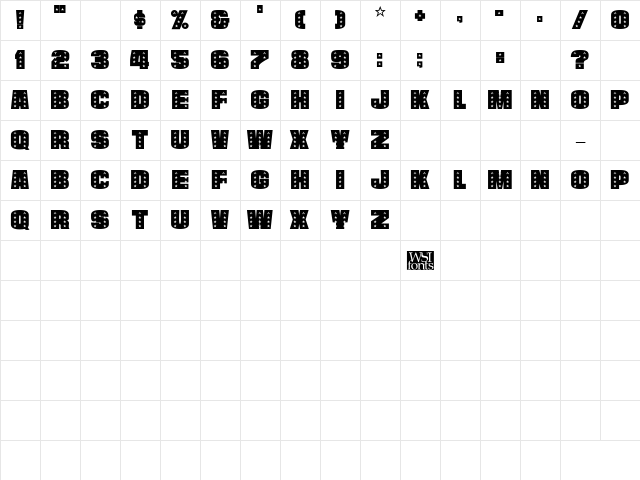
StarsCapsHeavy Regular
StarsCapsHeavy Family
Design Context for StarsCapsHeavy
StarsCapsHeavy is a composed and adaptable typeface that performs quietly and consistently across a wide range of design contexts.
Pro Tip: Use StarsCapsHeavy in both headline and body roles to test its range before committing to a single application.